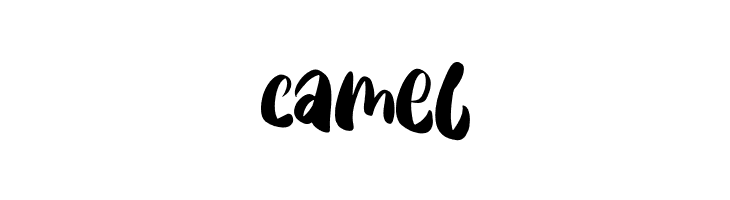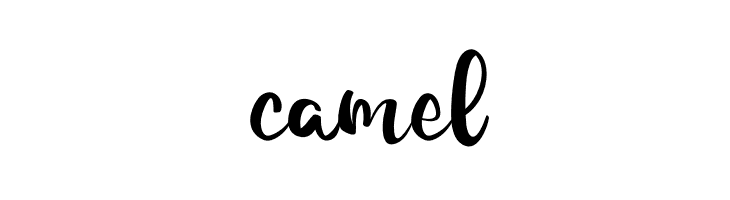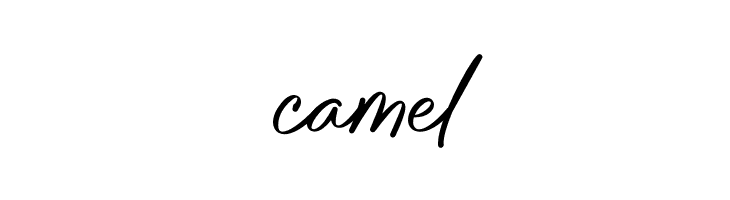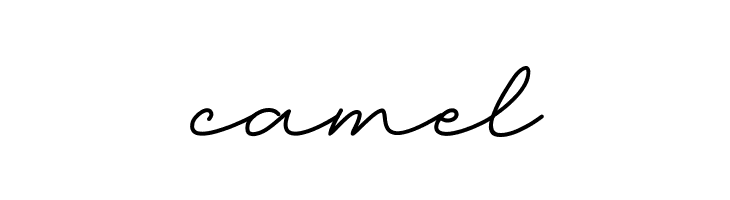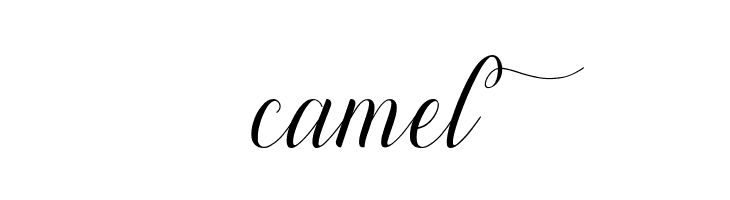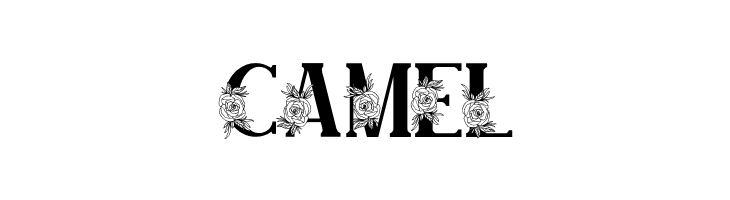
A graceful script font with flowing, interconnected letters and a handwritten feel.
A bold, playful font with brush-like strokes and whimsical curves.
An elegant, flowing script font with a handwritten style.
An elegant and flowing script font with intricate loops and swirls.
An elegant script font with flowing, cursive strokes and a sophisticated appearance.
An elegant cursive script font with intricate swirls and loops.
A bold, brush-style font with dynamic, hand-drawn strokes.
An elegant, flowing script font with smooth, continuous strokes.
A whimsical, cursive font with elegant loops and decorative flourishes.
A decorative font with floral elements integrated into uppercase letters.